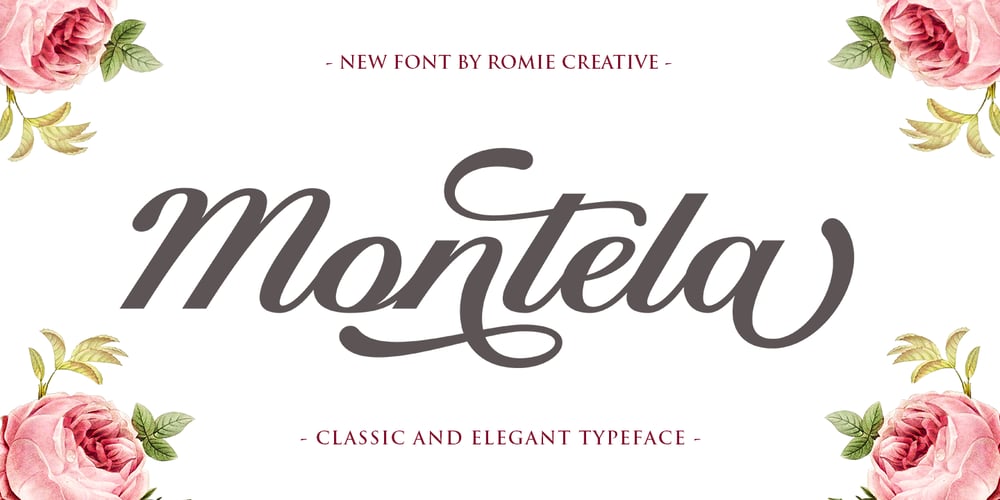
Montela
Montela font
Montela Font Family was designed by Romi Rahmadi and published by Romie Creative. Montela contains 1 styles and family package options. Montela – is a modern calligraphic typeface with several alternate ligatures as well as swashes.This font is made in a modern style with a very beautiful, elegant, very casual start and finish and fits your various design needs Perfect for logos, branding, titles, social media posts, advertisements, product packaging, product design, labels, photography, watermarks , special events, magazines, web design, etc.